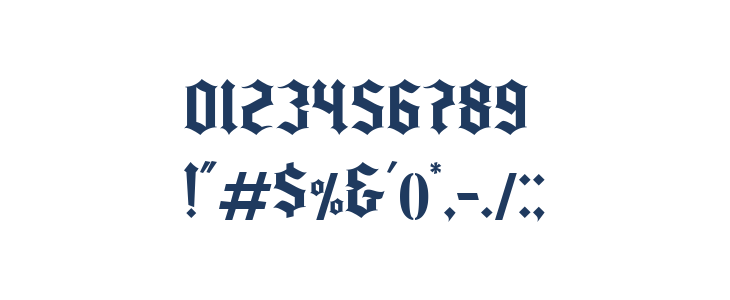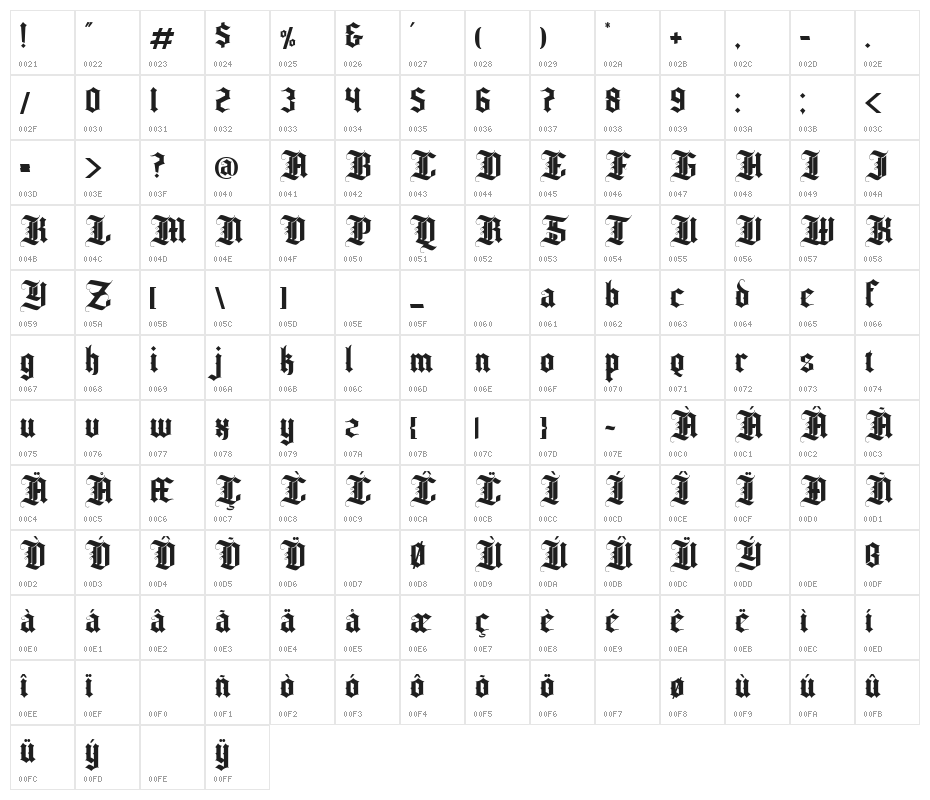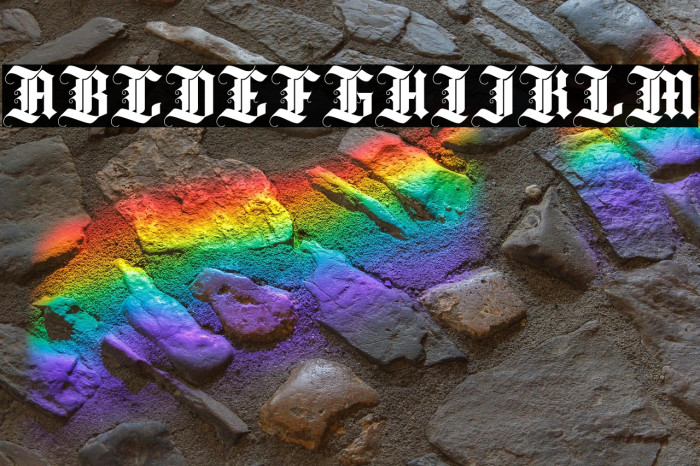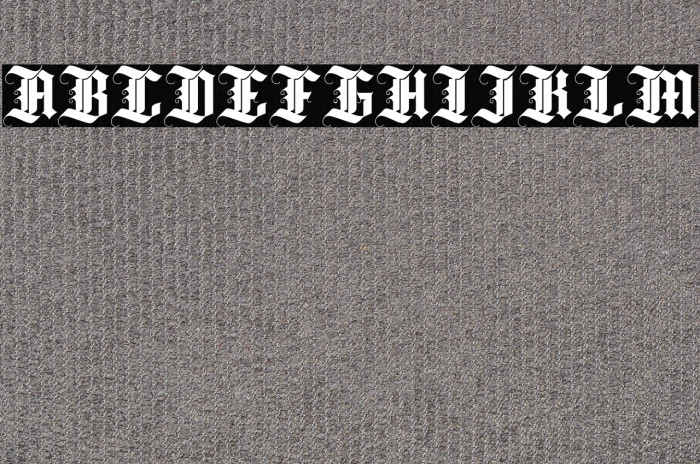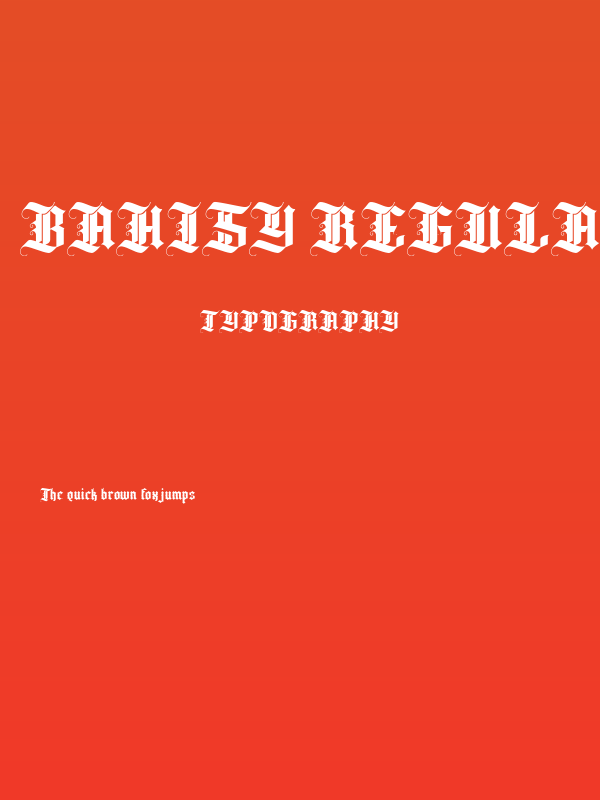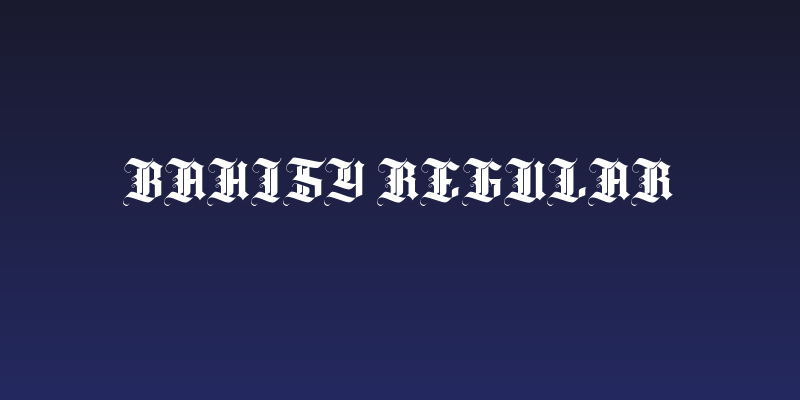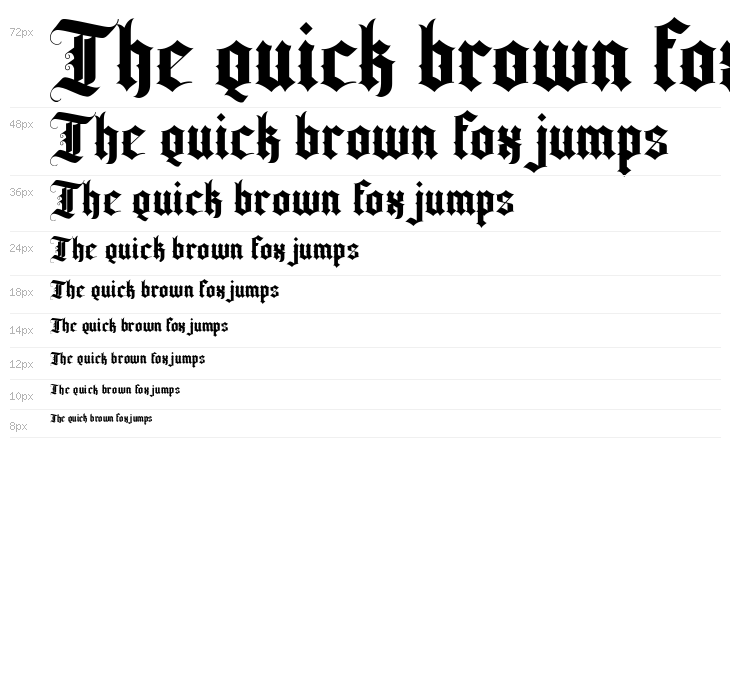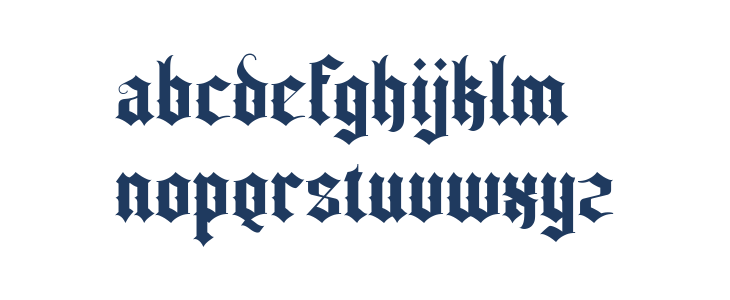
Bahisy Regular Font
Bahisy Regular Description
This font showcases a traditional blackletter style, characterized by its ornate and intricate design. The letters are bold and angular, with sharp edges and elaborate flourishes that give it a historical and gothic appearance. Each character is distinct, with a high level of detail that reflects the craftsmanship of medieval script. The uppercase letters are particularly elaborate, featuring additional decorative elements that enhance their visual impact. The lowercase letters maintain the same level of detail, ensuring consistency throughout the typeface. The numerals and special characters are equally stylized, fitting seamlessly with the overall aesthetic. This font is ideal for projects that require a touch of elegance and historical flair.
| Overall Style | Vintage |
| Use Case | Logos, Headlines, Decorative text |
| Proposed Projects | Perfect for historical documents, invitations, certificates, branding for luxury products, or any design needing a classic and sophisticated touch. |